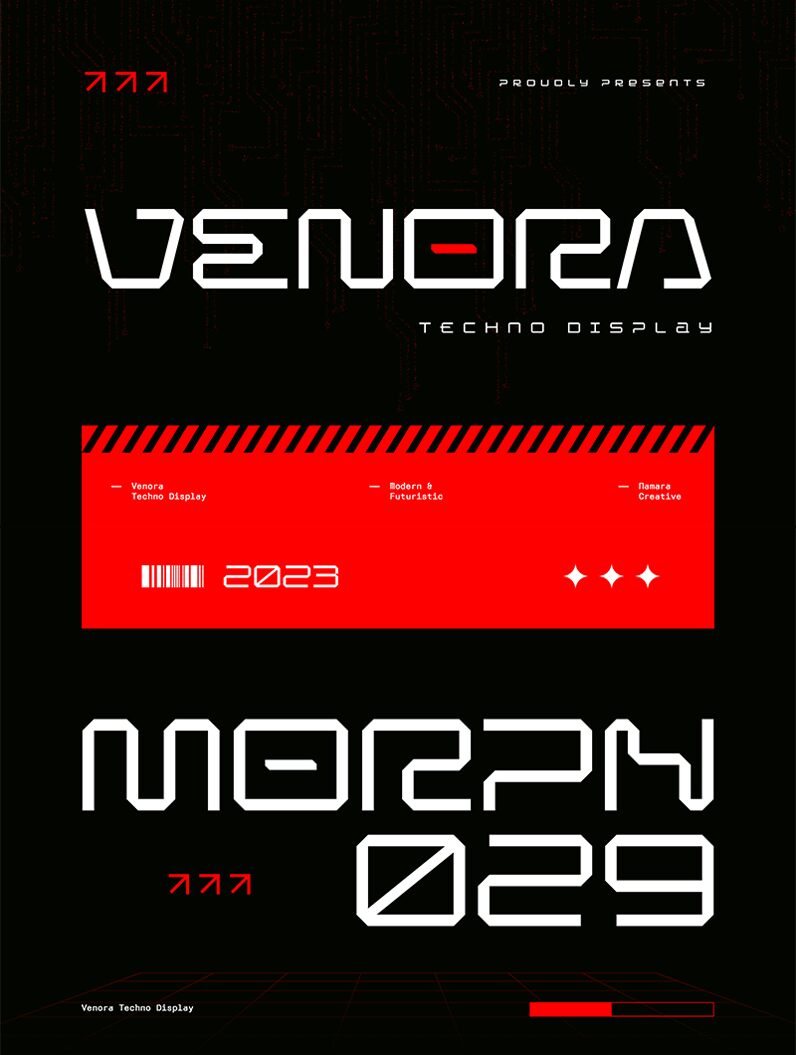
Venora font by Namara Creative is a fresh take on techno typography, designed with a futuristic and minimalistic approach. This free font exudes a modern and edgy vibe, perfect for projects that aim to embrace a tech-inspired style. Venora's structured and geometric design offers a sleek and innovative touch, seamlessly blending the mechanical with the digital in its visual elements.
Ideal for a wide range of design projects, Venora can enhance logos, websites, branding materials, and app interfaces. It’s also a fantastic choice for packaging, posters, digital products, or any project in need of a modern, technical feel.
This modern typeface features clean lines and sharp angles, providing a techno-futuristic look. It is a versatile and stylish choice for any design project that requires a high-tech edge.